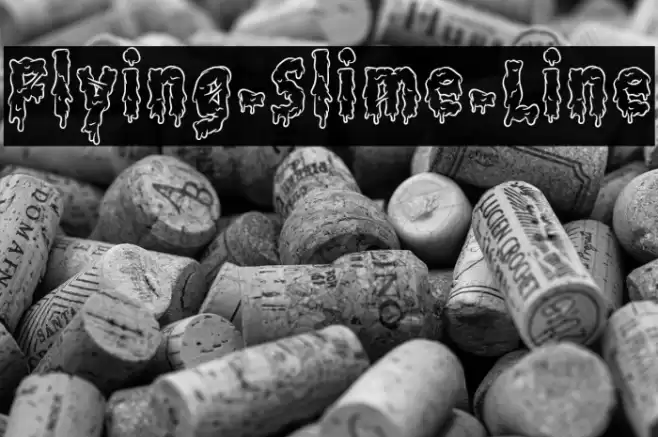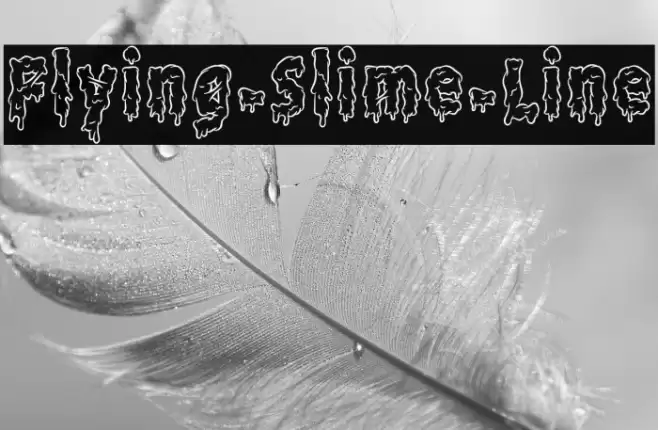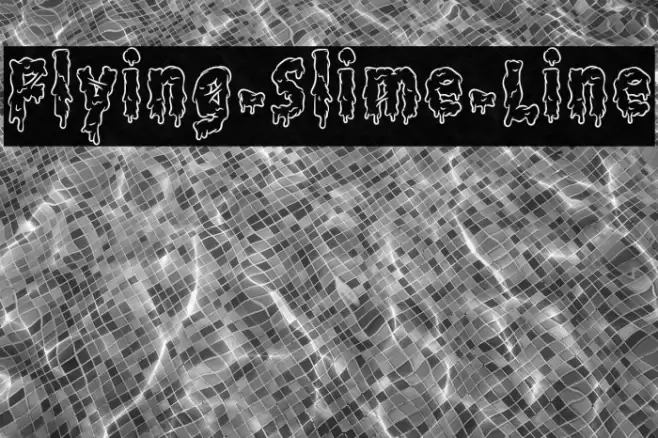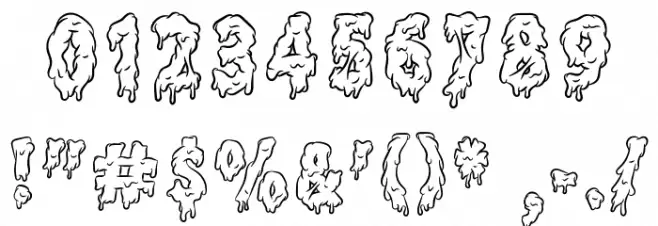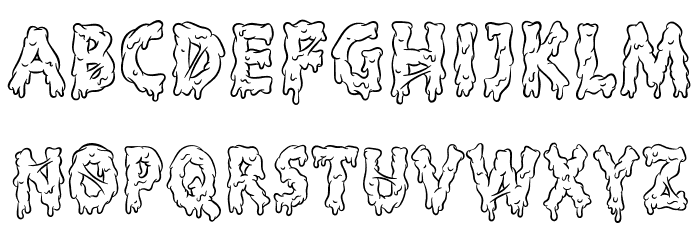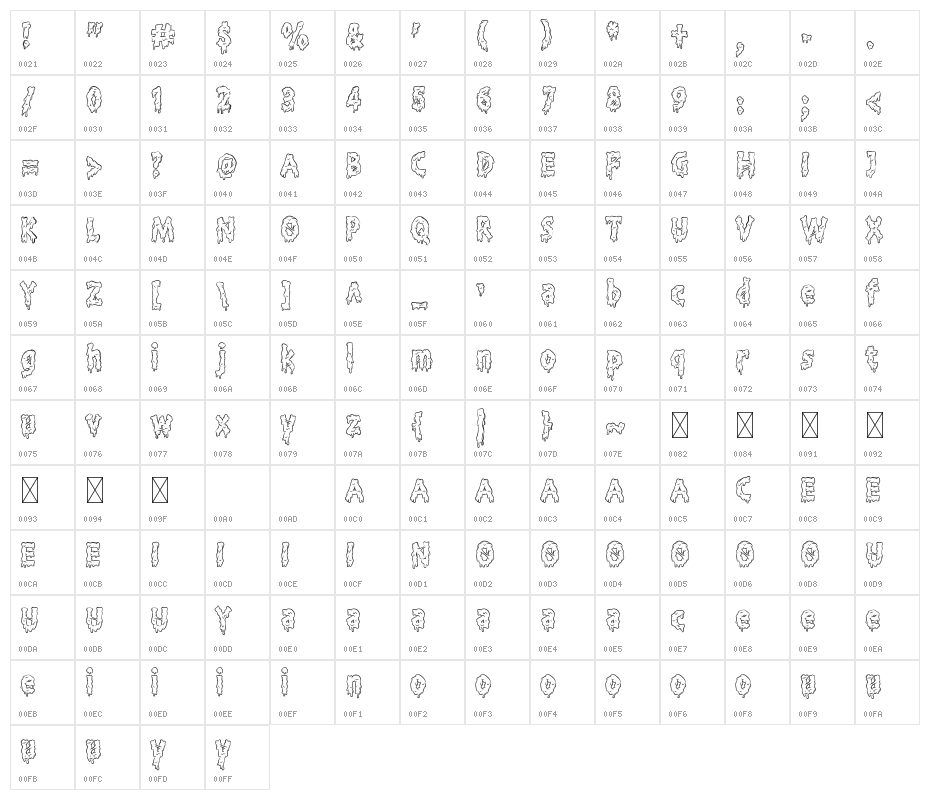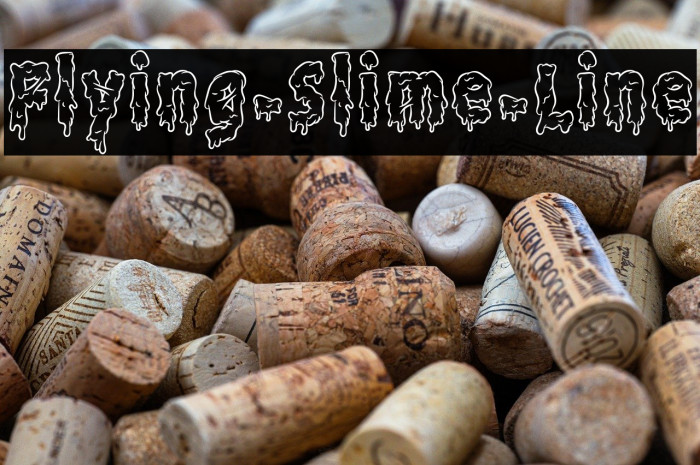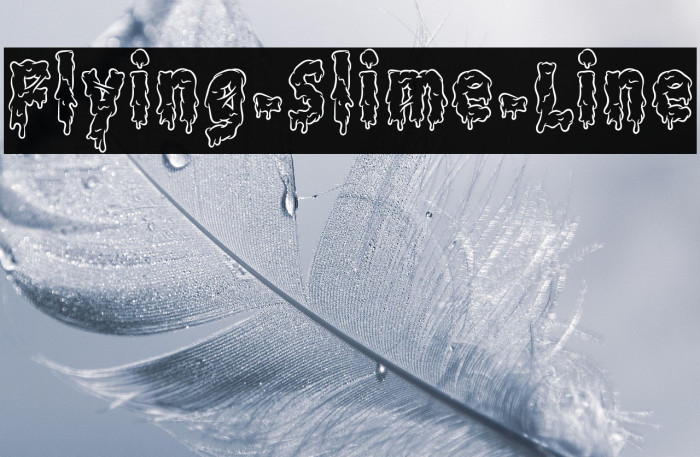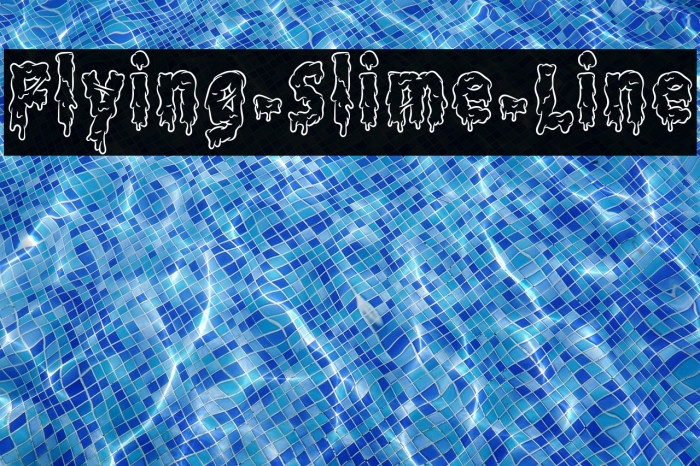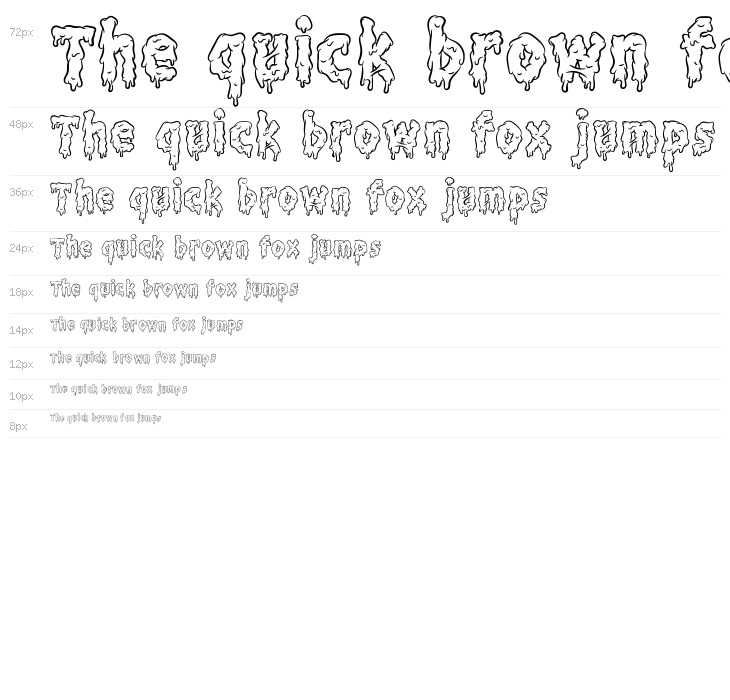
Flying-Slime-Line Font
Flying-Slime-Line Description
This font features a unique, dripping slime effect that gives each character a playful and slightly eerie appearance. The letters appear as if they are melting or oozing, with irregular edges and a hand-drawn quality. The uppercase and lowercase letters maintain a consistent style, with numbers and special characters following the same theme. The overall look is organic and fluid, making it ideal for designs that require a spooky or whimsical touch. The font's distinctive style captures attention and adds a creative flair to any project.
A playful, dripping slime font with a hand-drawn, eerie appearance from Uncategorized fonts.